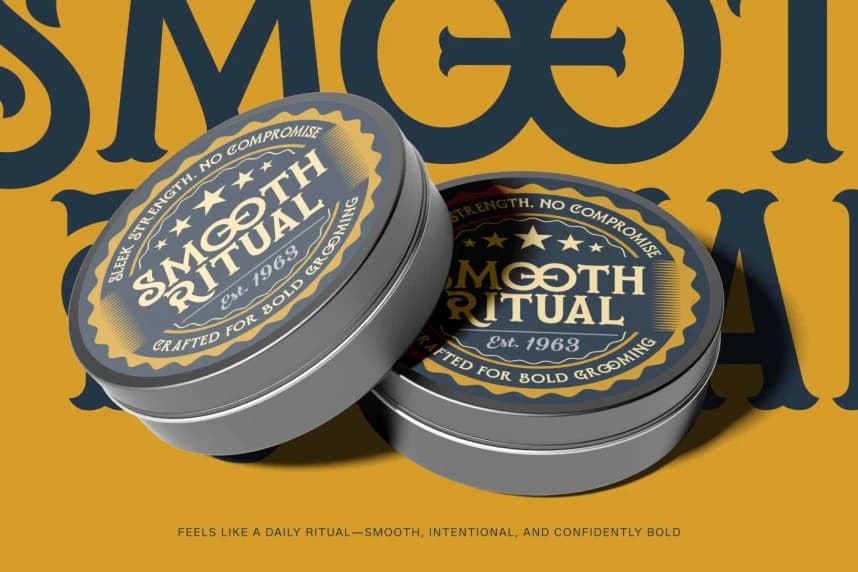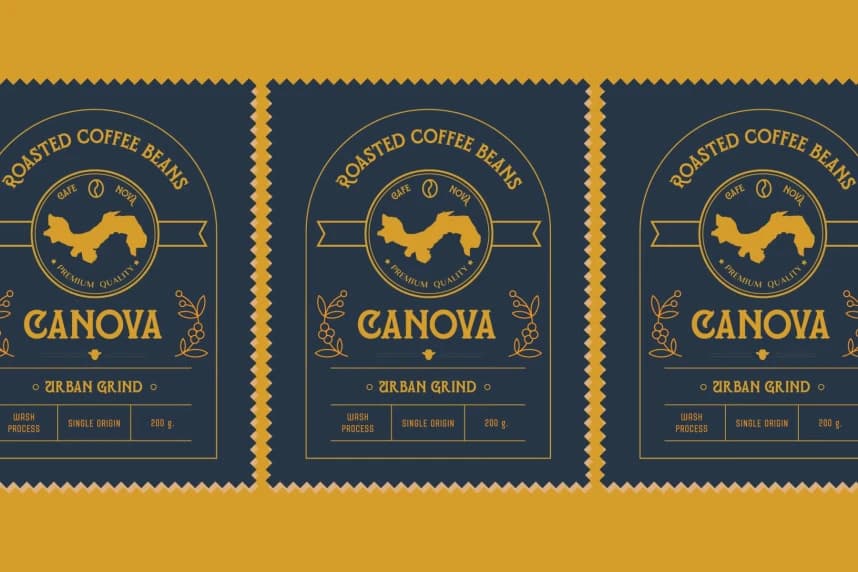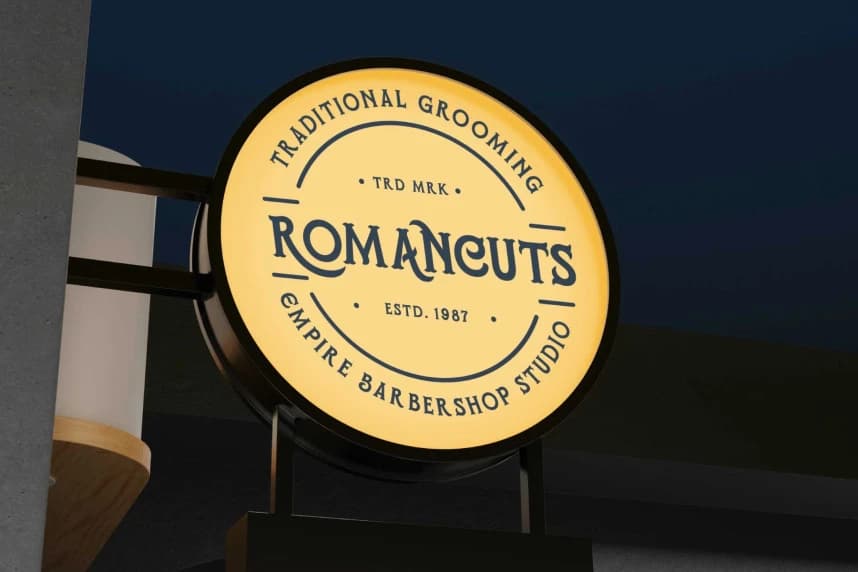
Romanest Font
Romanest Font is a decorative serif display typeface crafted to bring bold vintage character into modern design. Enriched with ornamental flares and expressive curves that make each character feel intentional and handcrafted.